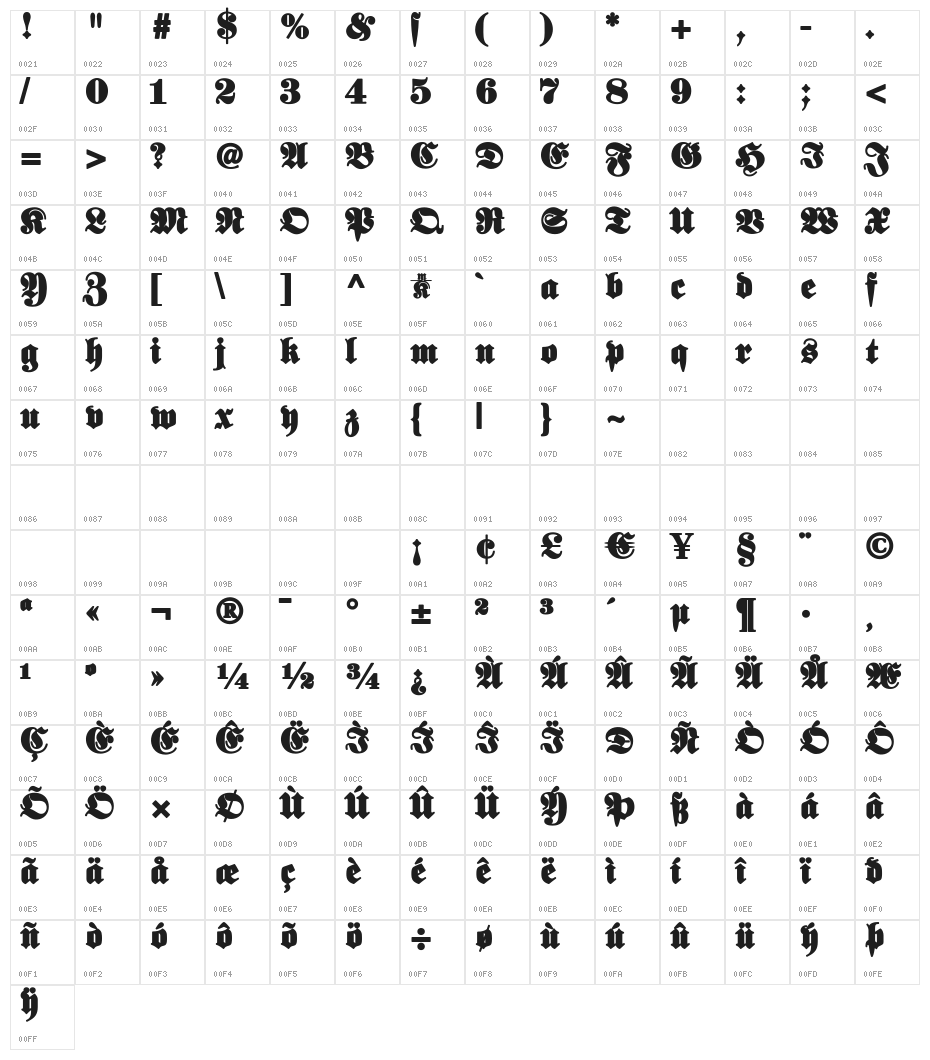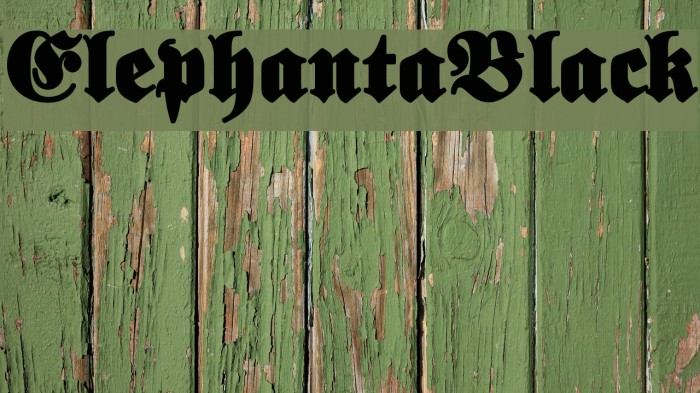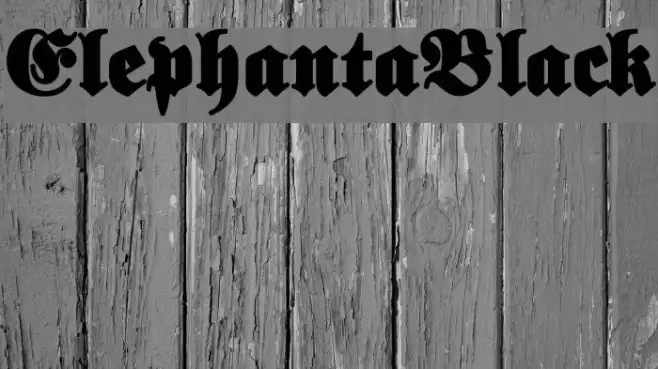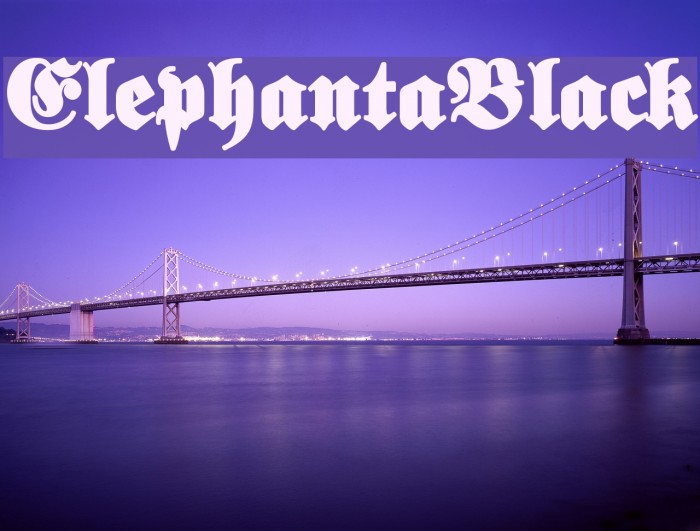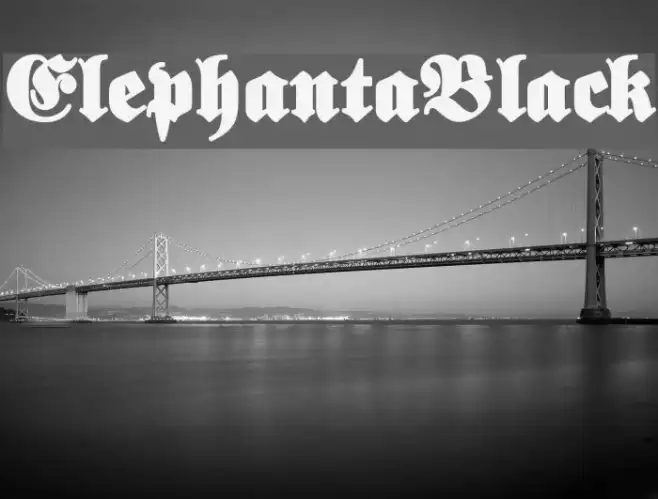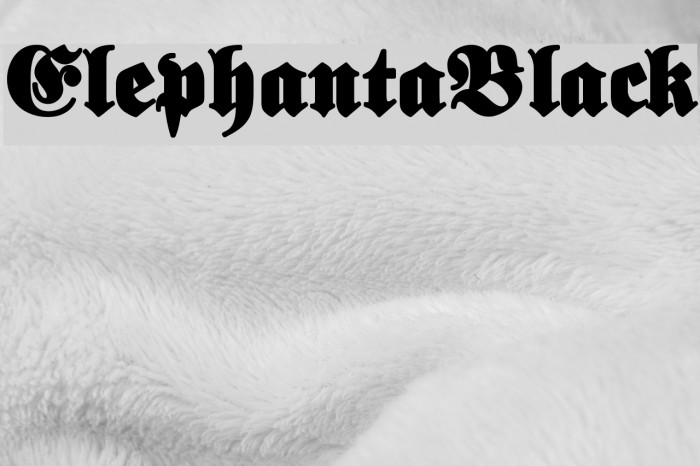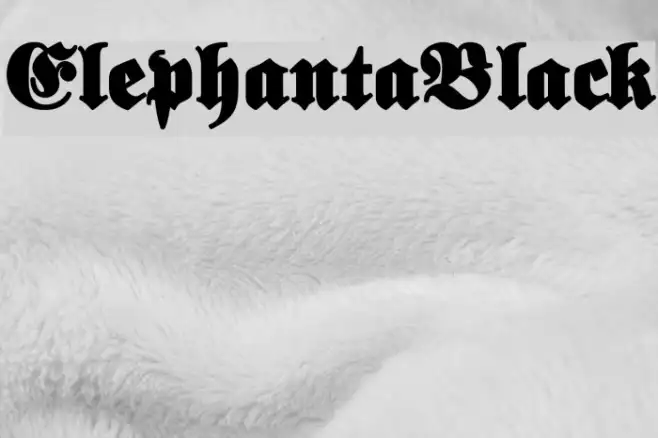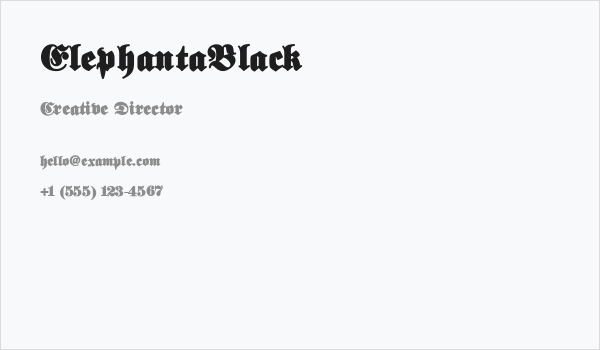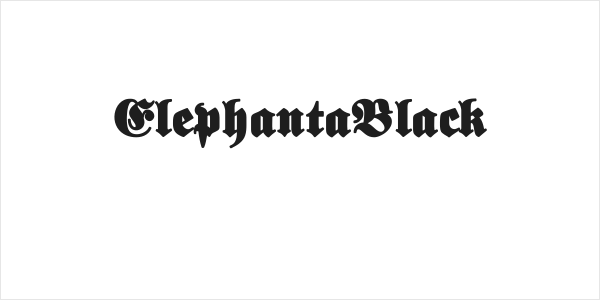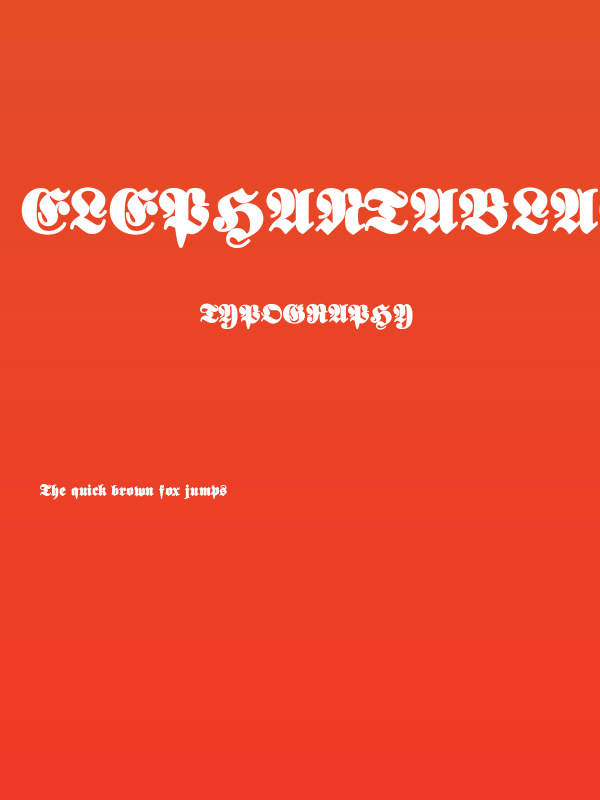
ElephantaBlack Font
ElephantaBlack Description
This font features a bold and dramatic style with a strong blackletter influence, characterized by its ornate and intricate letterforms. The uppercase letters exhibit a traditional Gothic aesthetic with sharp, angular strokes and decorative elements, while the lowercase letters maintain a similar style with slightly more rounded forms. The numerals are bold and consistent with the overall heavy weight of the font. Special characters are designed to match the elaborate style, making them suitable for decorative purposes. The font's high contrast between thick and thin strokes adds to its striking appearance, making it ideal for impactful designs.
| Use Case | Headlines, Logos, Decorative text |
| Proposed Projects | Ideal for projects requiring a historical or medieval touch, such as event posters, book covers, or branding for themed venues. |